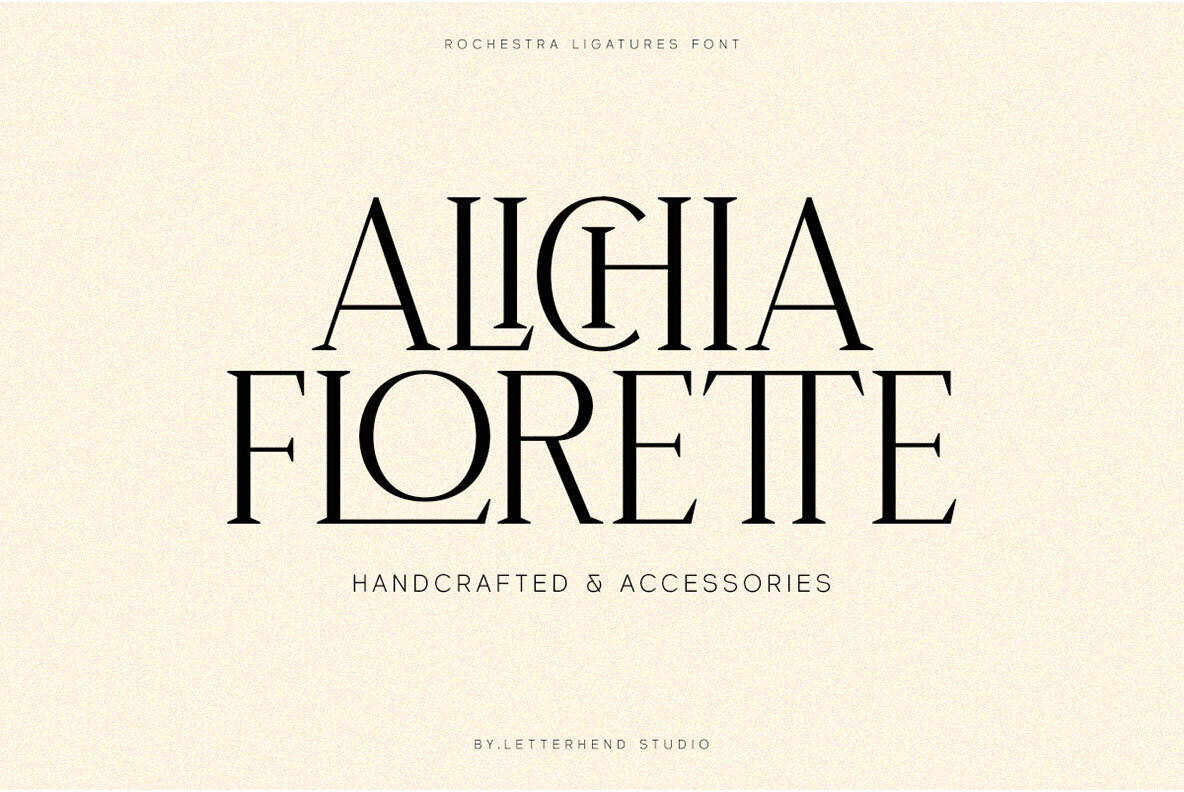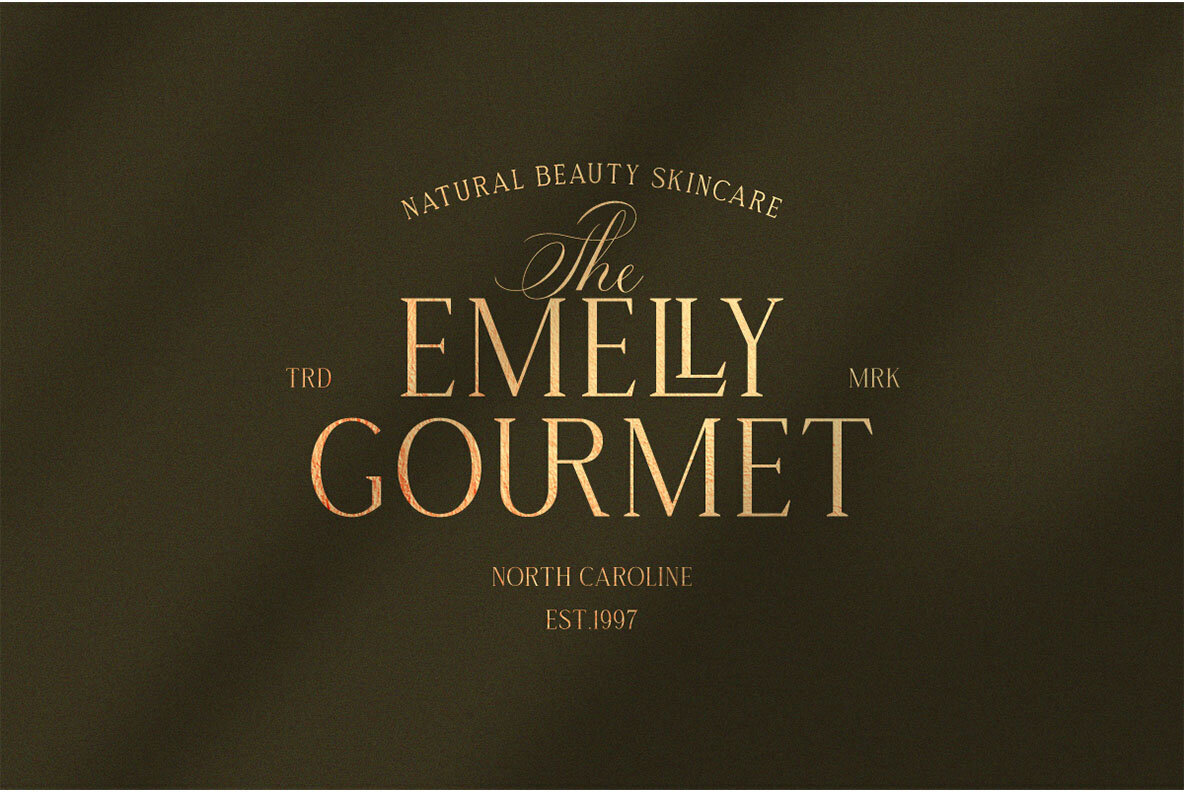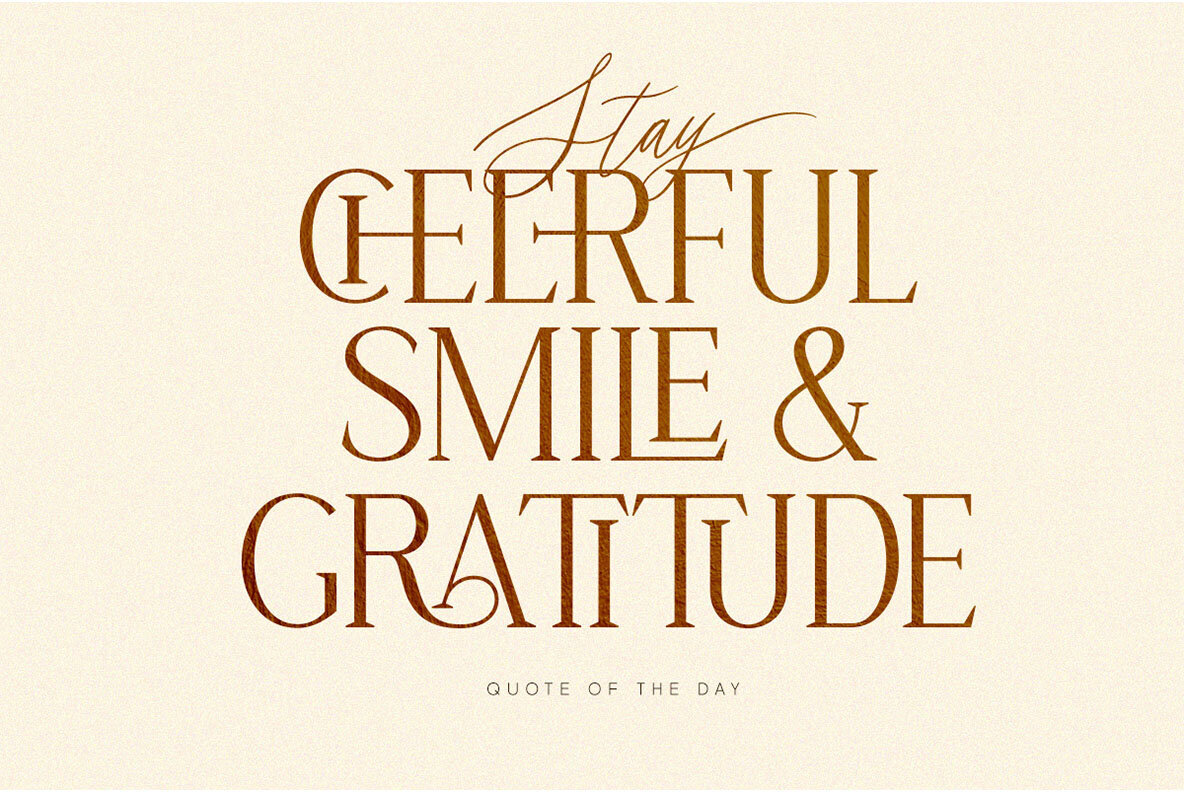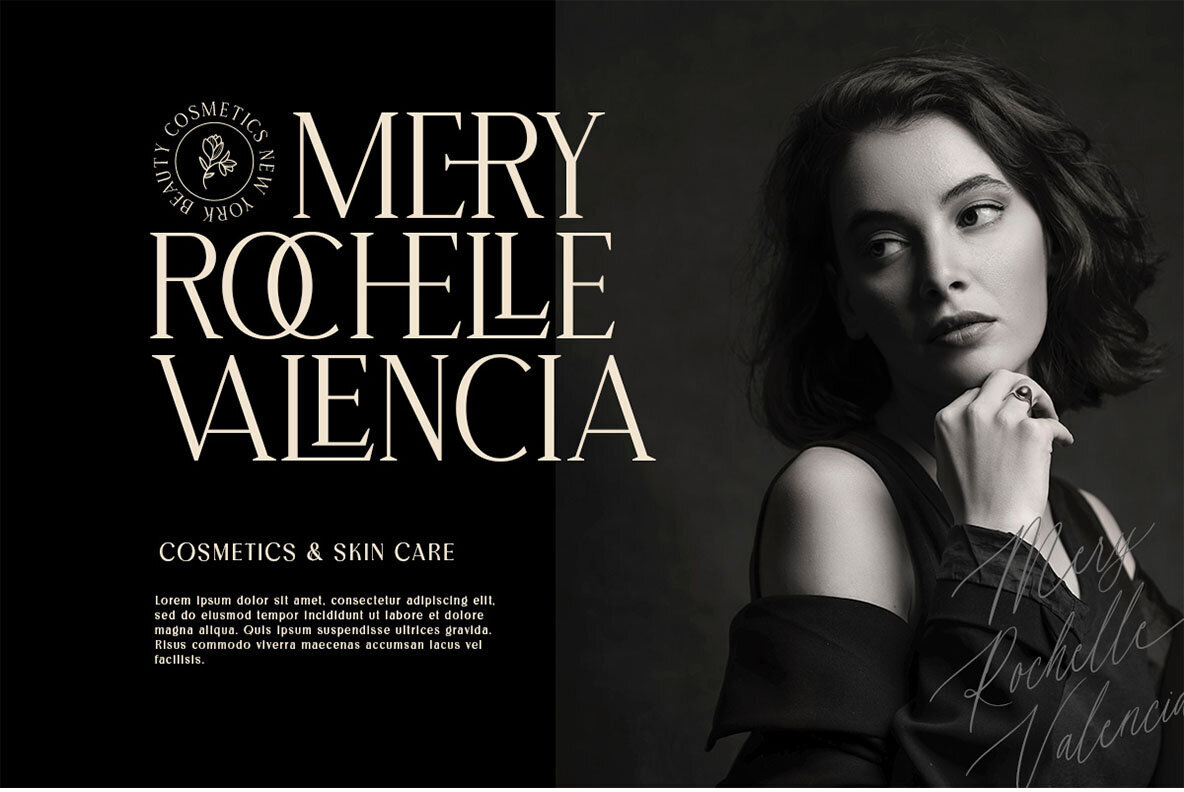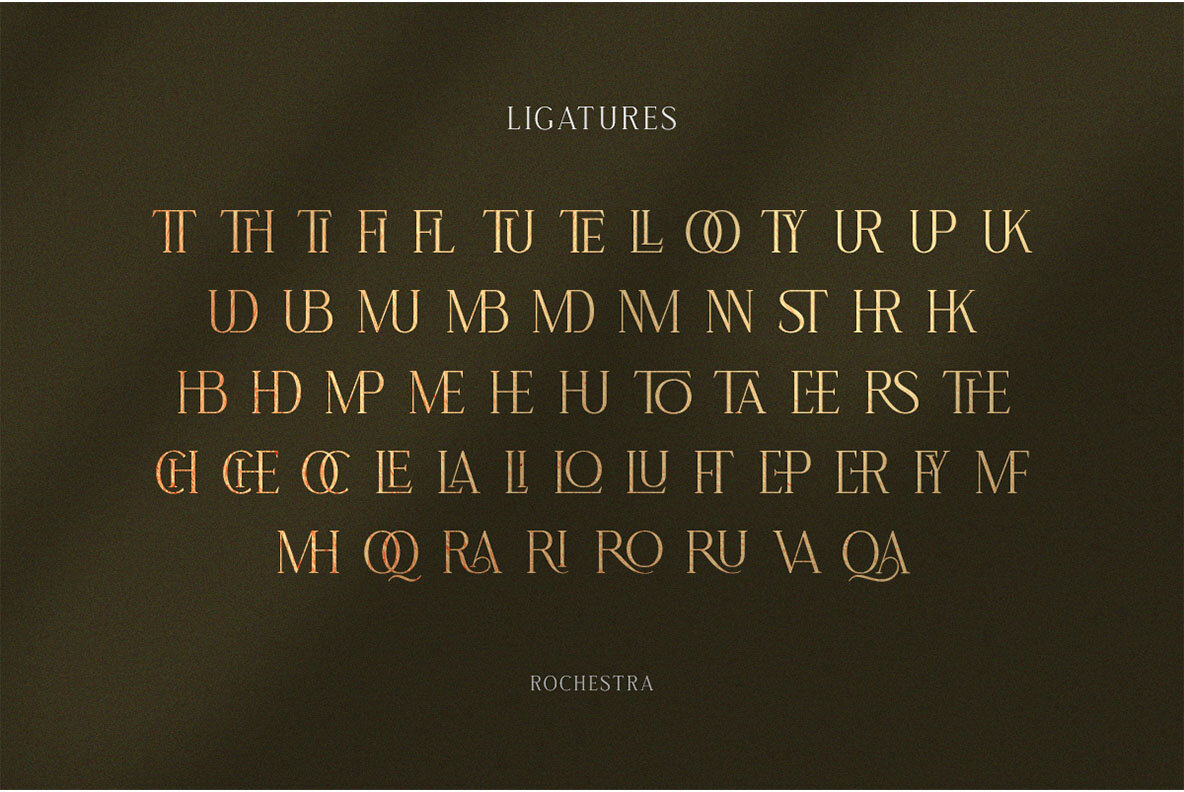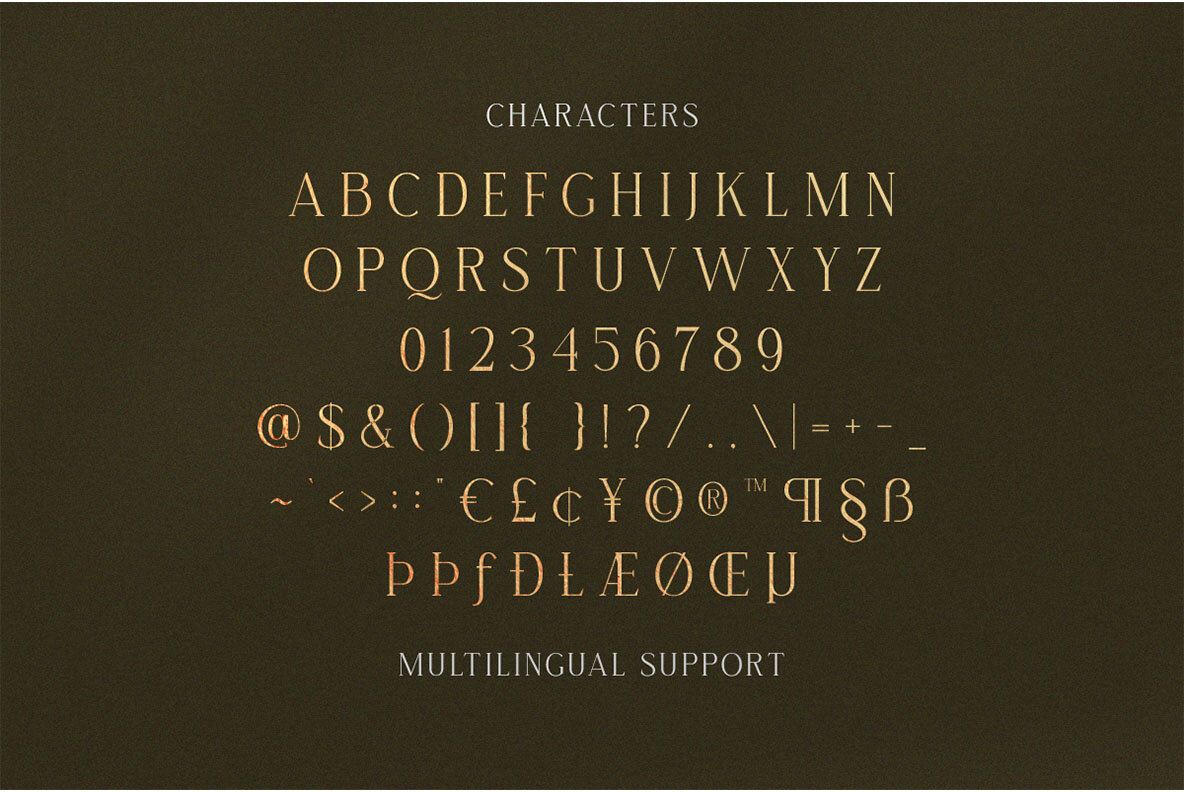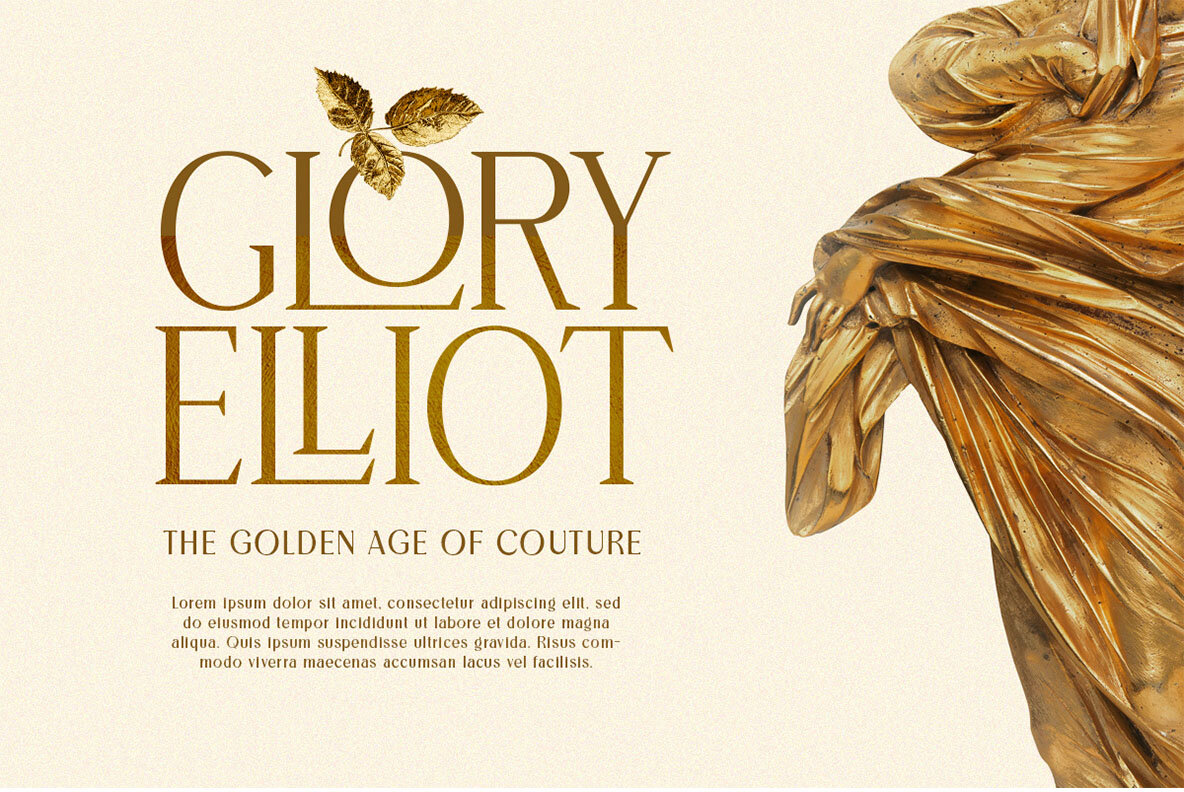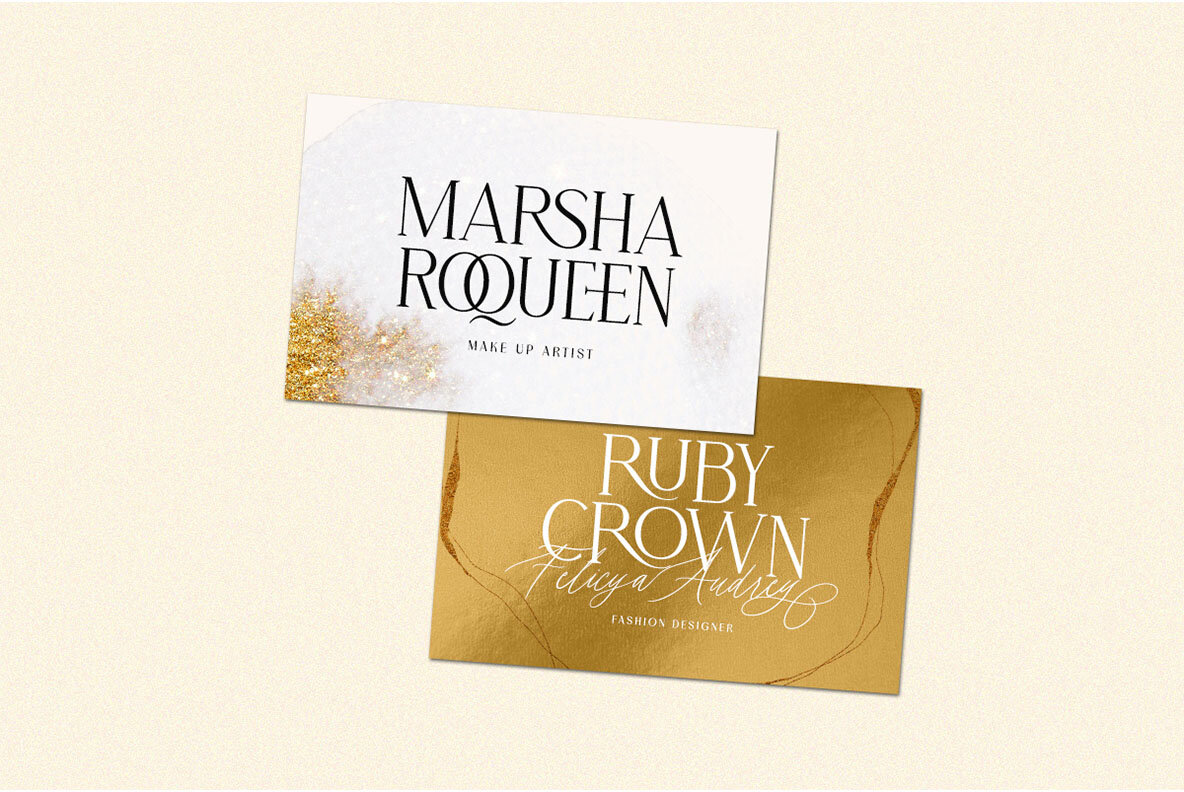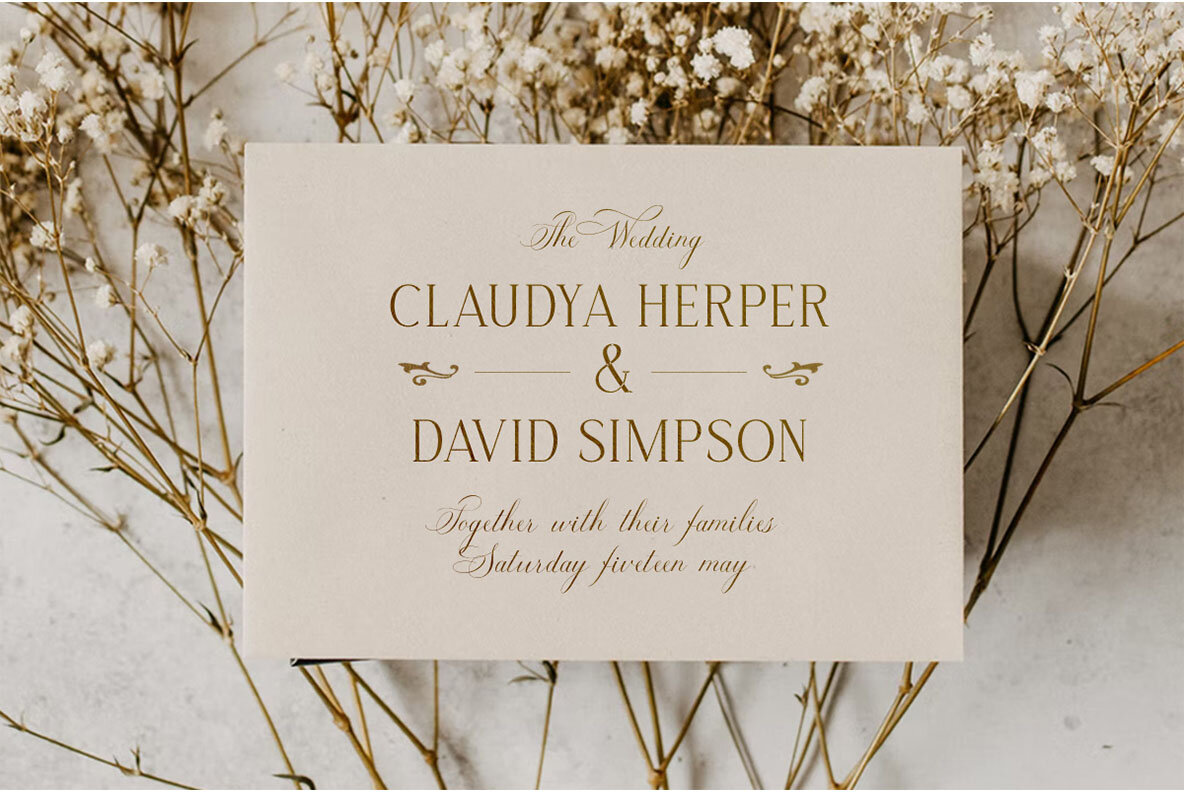
Rochestra Font
Rochestra Regular
Rochestra Typeface is the ultimate serif for all your creative needs. From logos and labels, to invitations or any other formal form - this font has you covered!